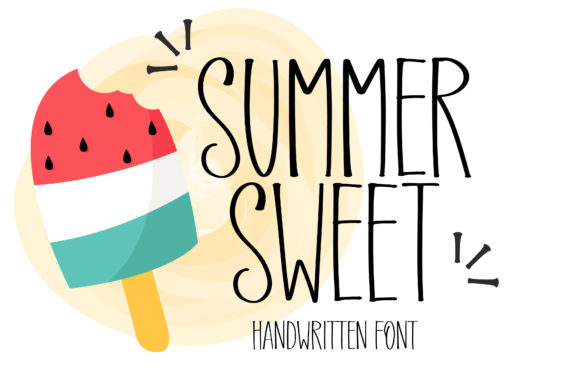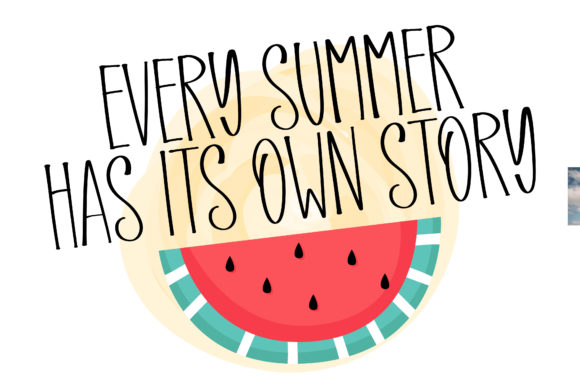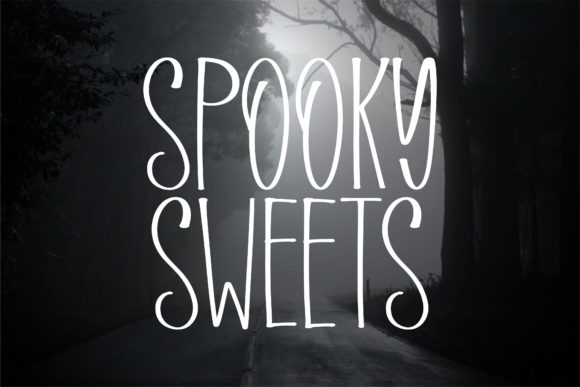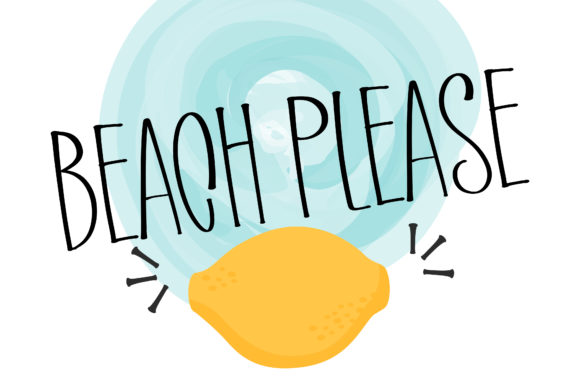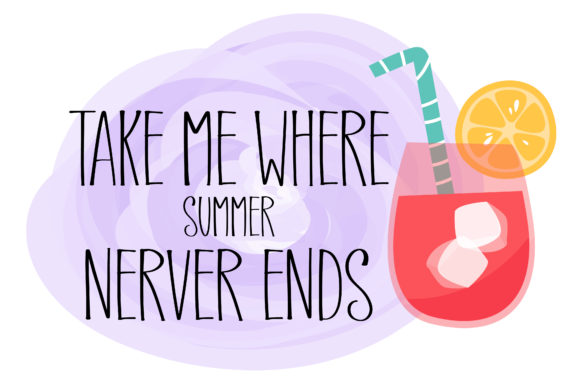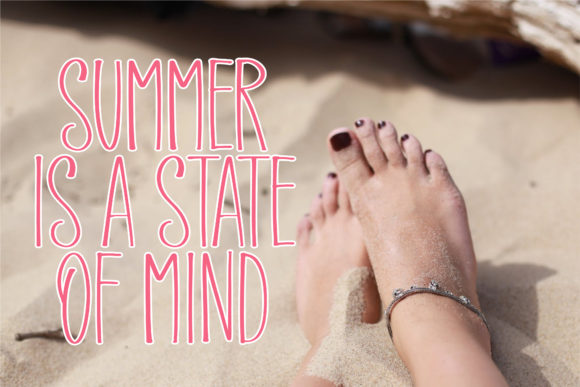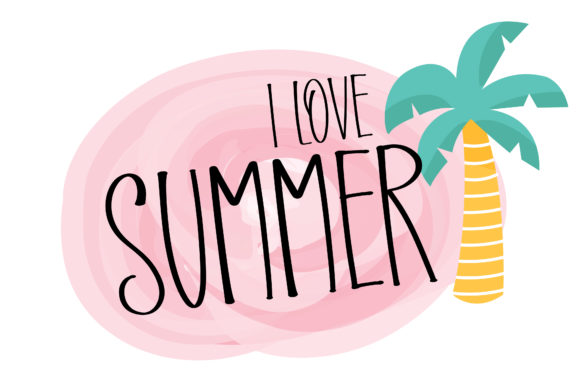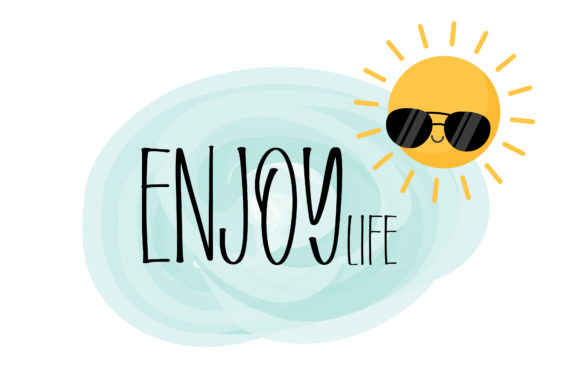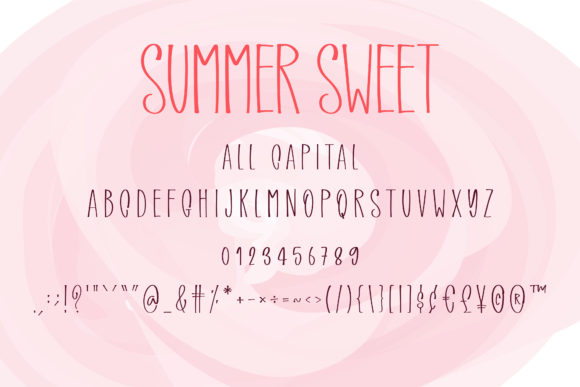
Summer Sweet Font
About Summer Sweet Font
Summer Sweet is a beautiful and neat lettered handwritten font. Its natural and unique style makes it incredibly fitting to a large pool of designs. The only limit is your imagination!